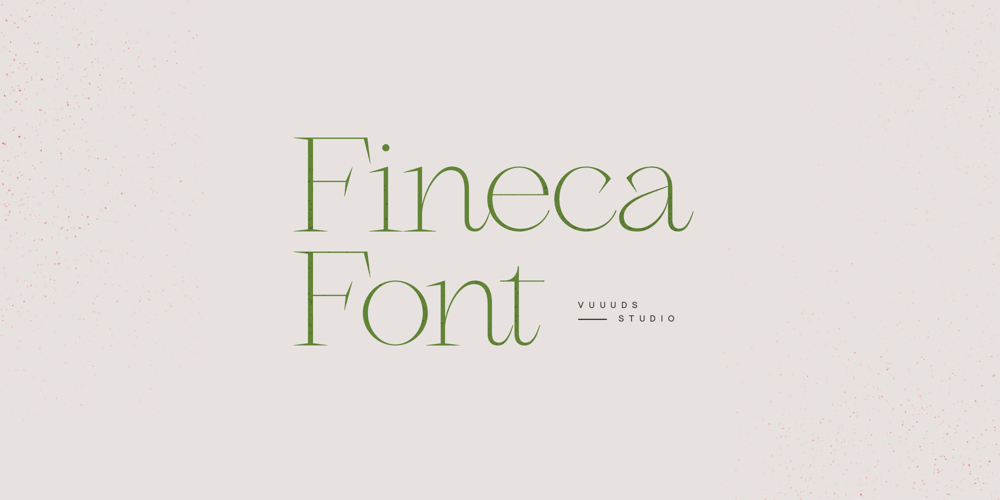
Fineca Font Family was designed by Agung Syaifudin and published by vuuuds. Fineca contains 1 styles and family package options. Introducing Fineca Font!Fineca is modern serif font, every single letters have been uniquely crafted.This font including beautiful alternate glyph. You can access the alternate glyph via Font Book (Mac user) or Windows Character Map (Windows user), I’ve been put the link tutorial inside the zip file.